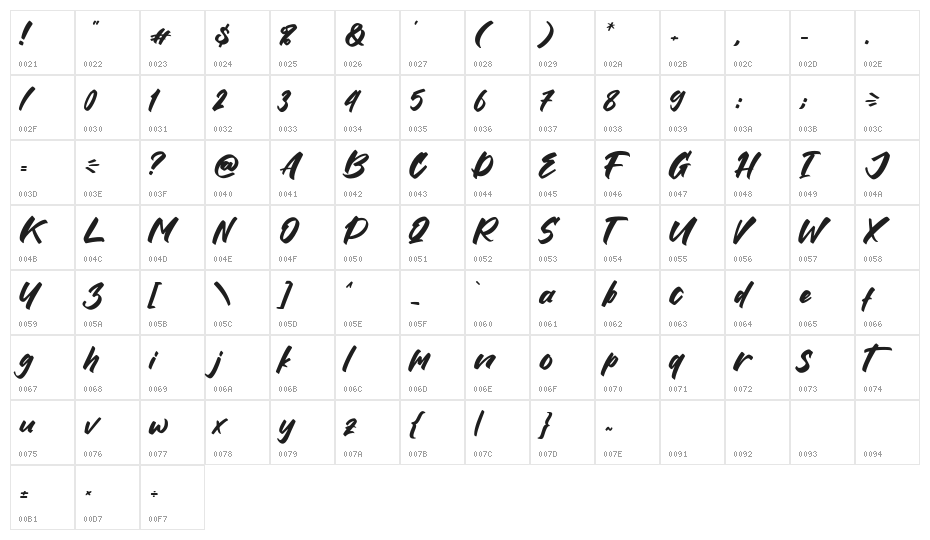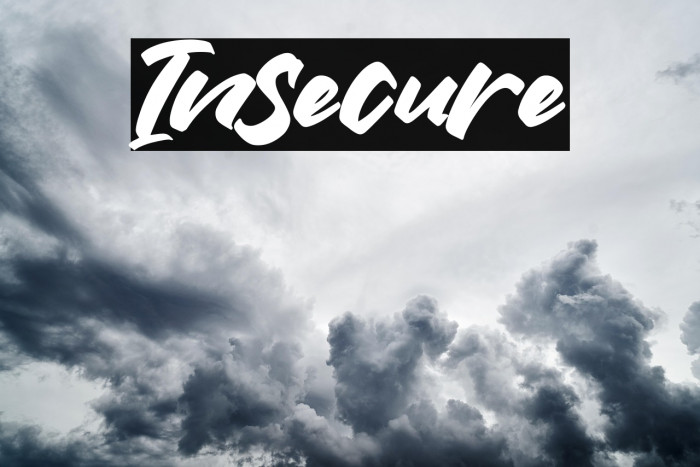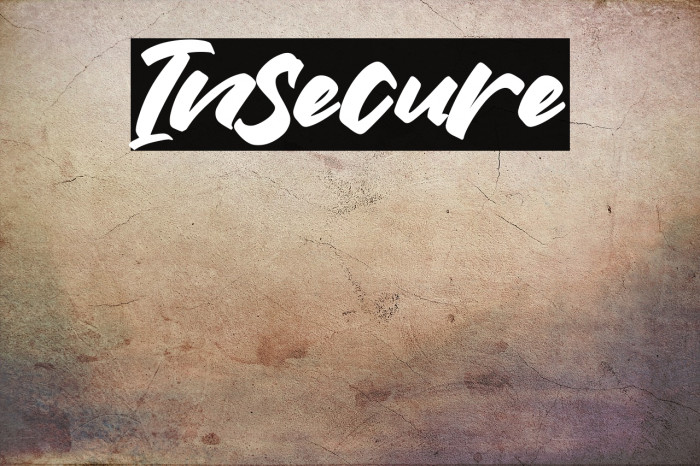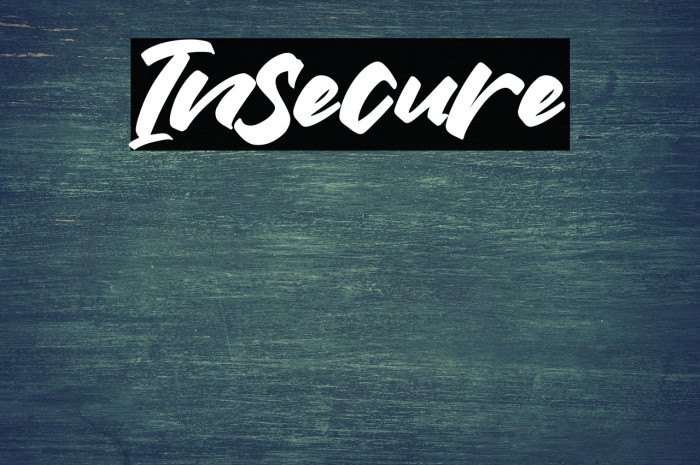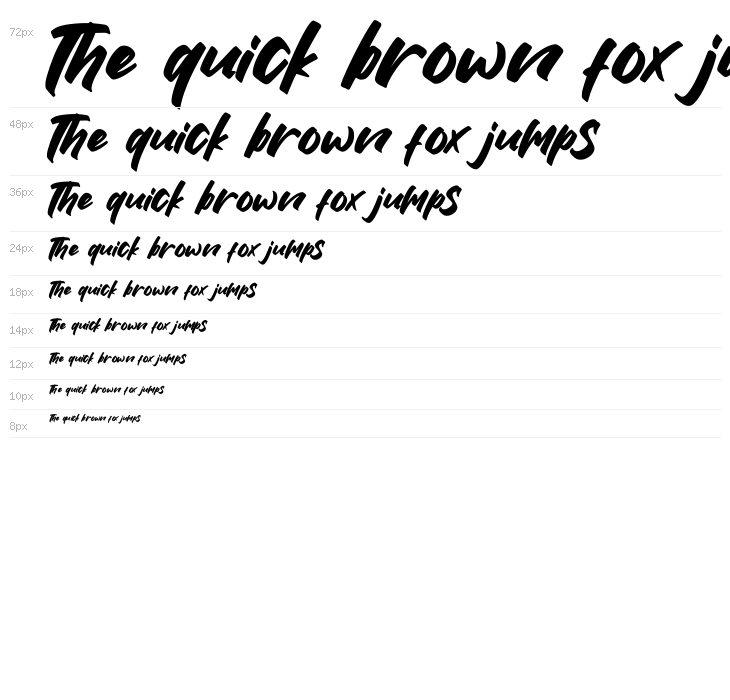
Insecure Font
Insecure Description
This font features a bold and dynamic script style, characterized by its fluid and energetic strokes. The letters are connected in a way that mimics natural handwriting, giving it a personal and expressive feel. The uppercase letters are particularly striking, with exaggerated curves and loops that add a sense of movement and flair. The lowercase letters maintain a consistent flow, complementing the uppercase with their smooth transitions. Numbers and special characters are crafted with the same attention to detail, ensuring a cohesive look across all elements. This font's bold presence makes it ideal for projects that require a touch of personality and creativity.
| Use Case | Logos, Headlines, Invitations |
| Proposed Projects | Ideal for branding, logos, invitations, and creative design projects that require a personal touch. |